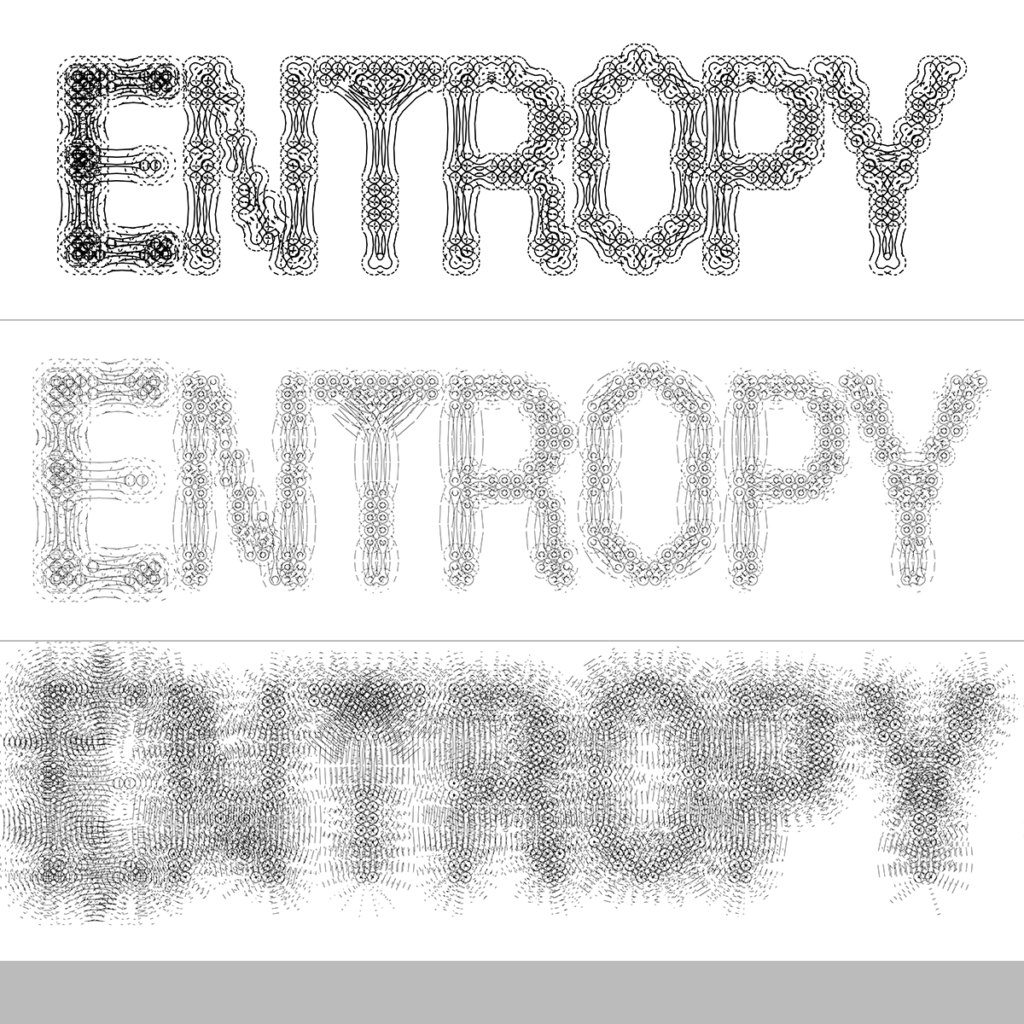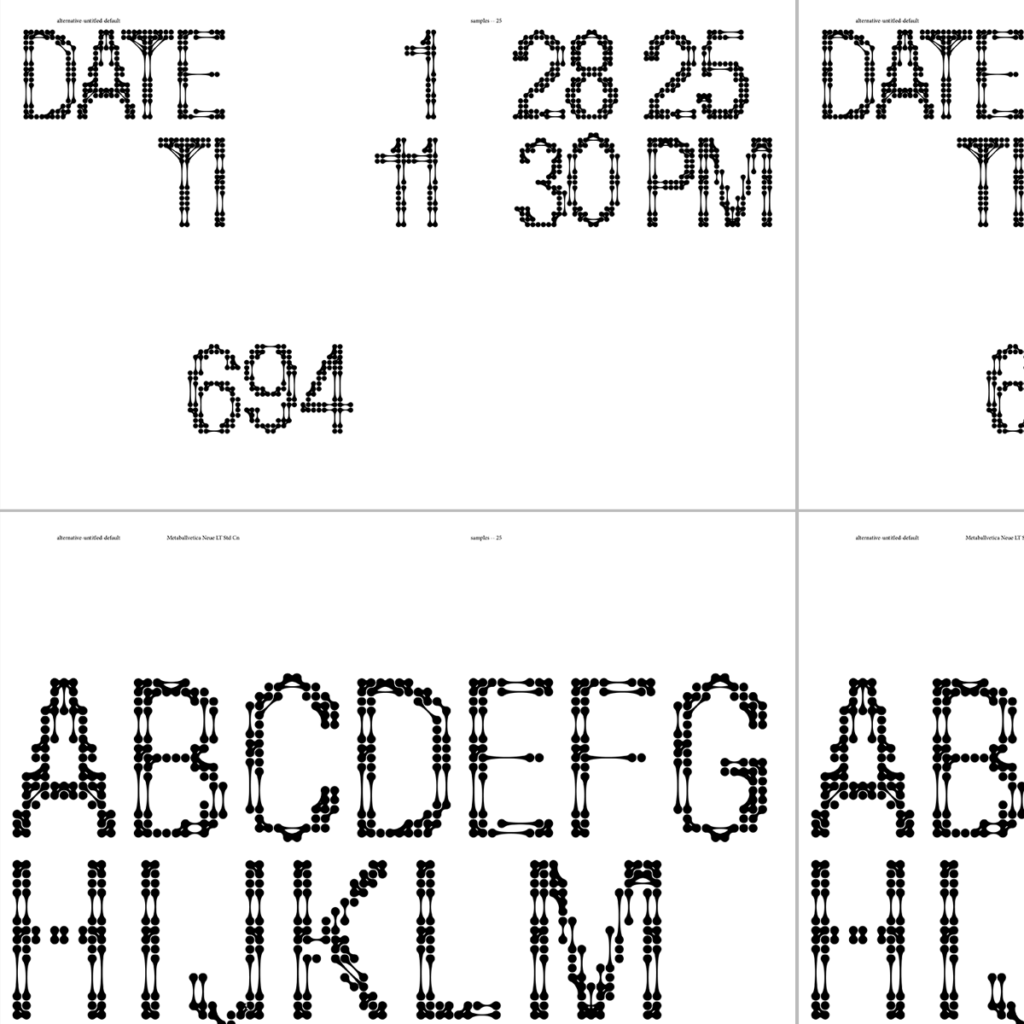
This type began as a variation of Helvetica, modulated through a vibe-coded Python program. I added Metaball connections by hand in Illustrator, turned the vectors into type in Glyphs, and reprocessed them through custom software modeled on the Hershey Fonts. Each stage transformed the letterforms—mechanically, visually, and structurally—into something both engineered and expressive.
I explored many words and methods while preparing this submission. I ultimately chose stigmata—a term we often used during my final semester at Yale when discussing work. The Metaballvetica letterforms felt anatomical, like limbs or muscle fibers, despite how computed and processed they were. The “T” glyph, in particular, resembled a human figure: arms outstretched, legs hanging—suspended in gesture.
Among the many methods I tested, I first experimented with a gradient-based modular type generation tool (shared here). I eventually chose to take Metaballvetica—originally developed using that tool—and refine it using a Hershey-style monoline processor. The monoline tool works by reducing each letterform to a single continuous line, tracing the centerline of the strokes. This creates a skeletal, vector-like version of the type, stripping away weight and contrast while retaining structure and gesture.